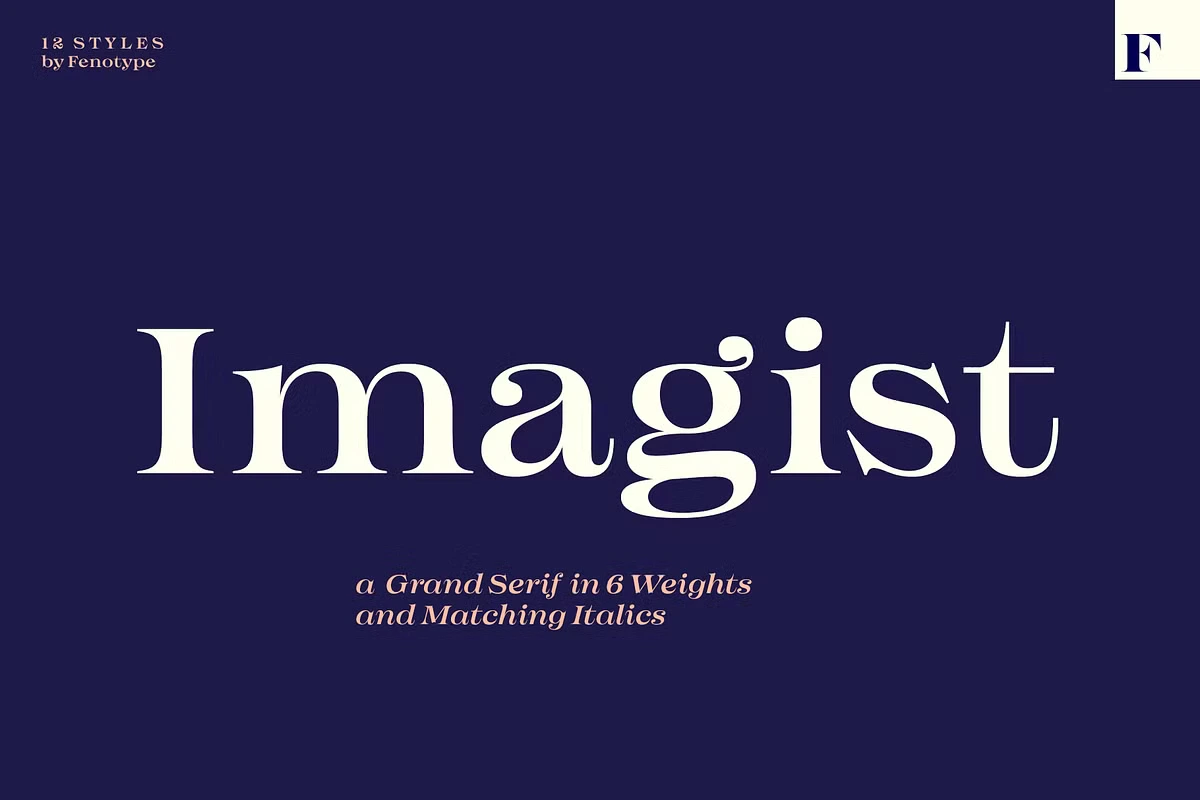
Imagist Font Family
The Imagist serif font draws inspiration from 20th-century poetry, taking its name from these literary works. Much like its poetic counterpart, the Imagist serif font emphasizes concrete imagery, creating a natural rhythm in its typographic composition. This vibrant serif font showcases strong ball terminals, giving it a distinctive and instantly recognizable aesthetic, particularly evident in characters like K, R, M, W, V, k, w, and y, where the ball terminals add a sense of strength and elegance.
The Imagist serif font is available in six weights, including an Italics version that features a cursive alphabet known as Stylistic Alternative. Additionally, it offers Old Style numerals and Small Caps, all included within each font cut for further customization and versatility.